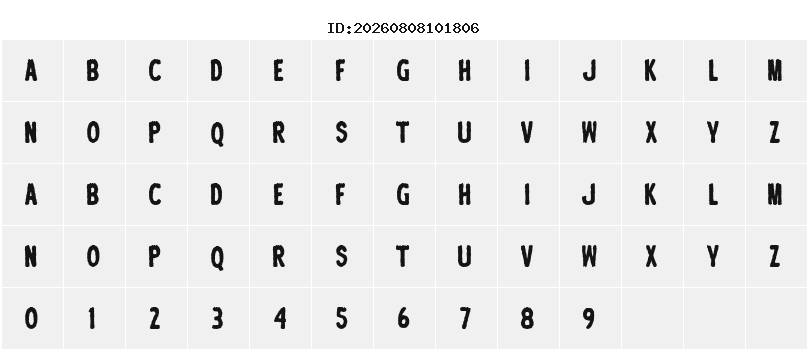
• Font Name: Postal
• Full Font Name: Postal Bold
About Postal.ttf
Postal.ttf is a modern, elegant sans-serif font designed for ultimate readability and visual harmony. Perfect for branding, headlines, web design, and print materials.